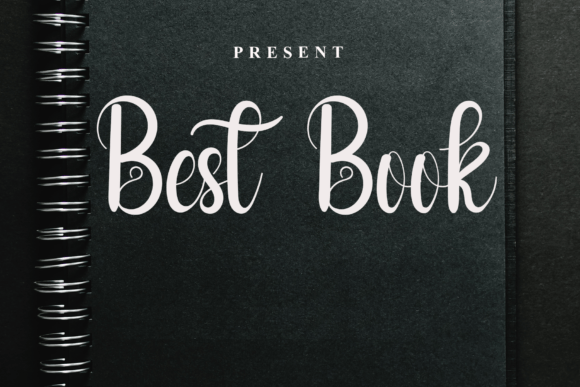
Introducing Best Book Font, the perfect script font for all your food design needs. Created by the talented PiPi Creative, this exquisite handwritten font is guaranteed to become your new favorite. With its blend of classy calligraphic influences and a contemporary touch, Best Book Font will elevate your projects to new heights.
Imagine the mouthwatering menus, captivating recipe books, and enticing food packaging you can create with this captivating font. Best Book Font adds a touch of elegance and sophistication to any culinary project, making it the ideal choice for food bloggers, chefs, and anyone in the food industry.
With its unique script style, every letter in Best Book Font is meticulously crafted to exude a sense of creativity and artistry. The flowing strokes and graceful curves bring a sense of fluidity and movement, ensuring that your text stands out and captures attention.
But Best Book Font is not just visually appealing; it is also highly versatile. Its wide range of weights and styles allow you to experiment and find the perfect fit for your specific project. Whether you're designing a logo for a restaurant, creating a menu for a wedding, or crafting an eye-catching social media post, this font has got you covered.
One of the key features of Best Book Font is its ability to evoke emotions. The elegant and sophisticated nature of this font creates a sense of luxury and indulgence. It instantly transports your audience to a world of fine dining and culinary delights, making them crave your creations even more.
But don't just take our word for it. Try Best Book Font for yourself and witness the magic it brings to your designs. Its smooth lines and impeccable details will leave you mesmerized, and your audience captivated.
Downloading Best Book Font is like unlocking a treasure trove of design possibilities. It provides you with the tools to express your creativity and make a lasting impression. Whether you're designing for a food blog, a cookbook, or a restaurant, this font will transform your projects into visual masterpieces.